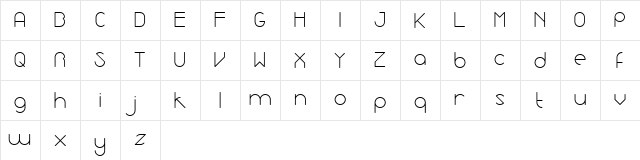
ultravioleta Regular
| Foundry | Bruno "aedys" Camargo |
| Designer | Bruno "aedys" Camargo |
Design Context for ultravioleta Typeface
ultravioleta takes a measured approach to typography — its balanced proportions and neutral character make it a reliable workhorse for both digital and print work.